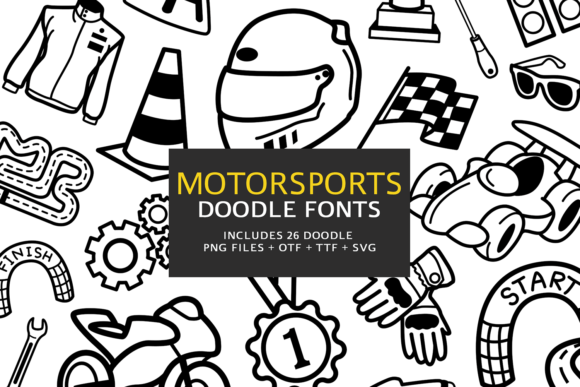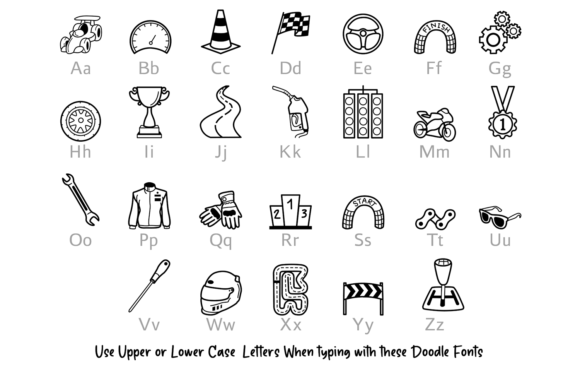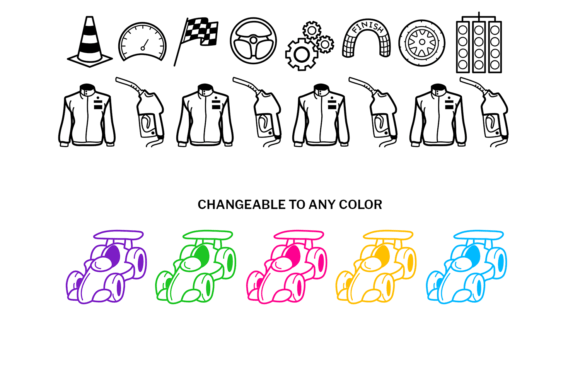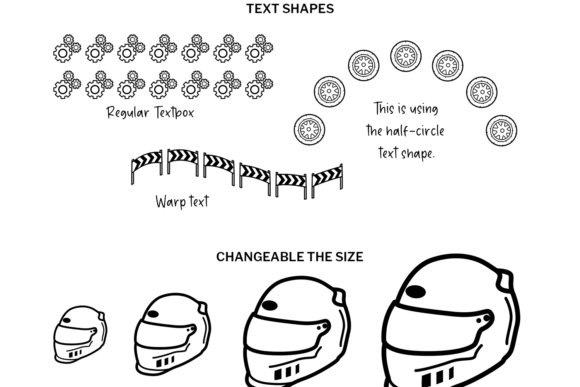
Motorsports Doodle Font
About the Motorsports Doodle Font
Explore the possibilities with Motorsports Doodle Font, a font that offers both beauty and functionality. Motorsports Doodle is a sporty and playful dingbats font that captures the essence of Motorsports with its whimsical icons and symbols. Each glyph is a unique doodle that represents a different aspect of the racing, from autosports or motorcycle racing to various accessories. The characters are bold and dynamic, with a sketchy and hand-drawn quality that adds to its fun and informal vibe. This font is perfect for creating Motorsports-themed designs, from team logos to posters to merchandise.
Its bold, playful energy makes it ideal for headlines, logos, and short, impactful text on posters or merchandise related to motorsports, action sports, or youthful brands. Avoid using it for body copy or lengthy text; the whimsical nature can become overwhelming and difficult to read in extended passages. It also isn’t suitable for UI applications requiring high readability.
Pair Motorsports Doodle with a clean sans-serif like Open Sans for a balanced contrast, or a more geometric sans-serif like Futura for a modern, streamlined feel. For a slightly more refined look, consider pairing it with a simple serif like Garamond or a subtle script font for a touch of elegance. The key is to choose a font that provides a legible counterpoint to the doodle’s playful energy.
Motorsports Doodle Font Example